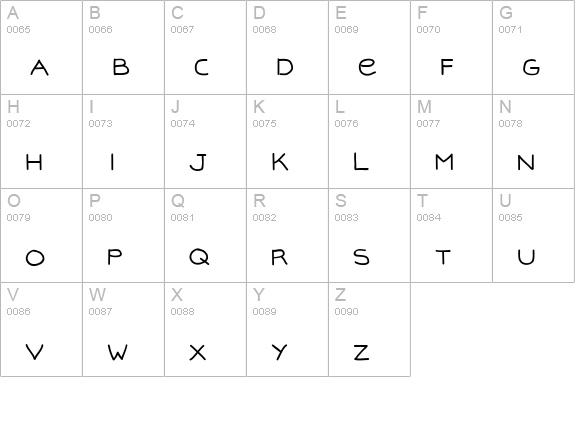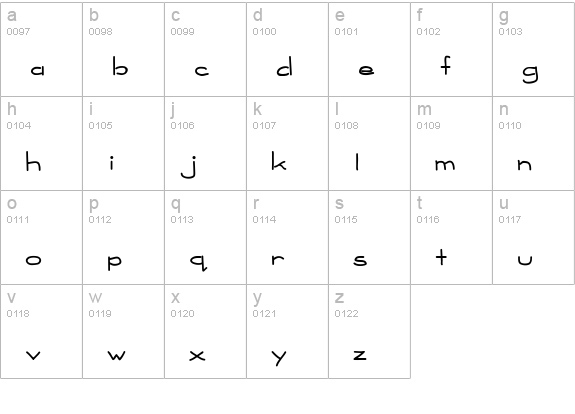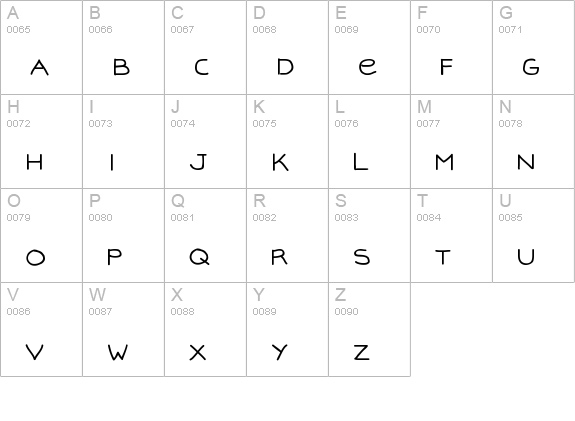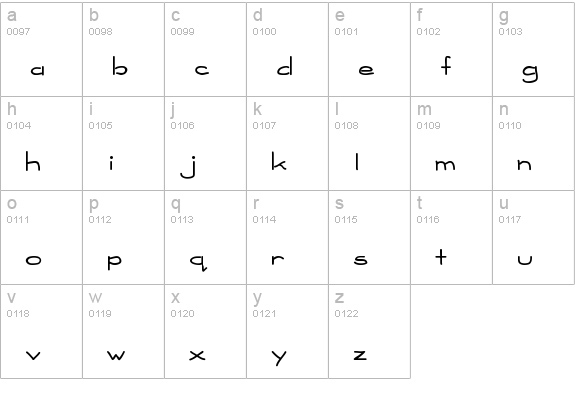
Madison Font Details
Introducing the exquisite Madison font, a delightful typeface that effortlessly combines elegance with a modern flair. Designed with meticulous attention to detail, Madison exudes a timeless charm that is perfect for a wide range of design projects. With its graceful curves and refined strokes, Madison captures the essence of sophistication, making it ideal for invitations, branding, packaging, and other creative endeavors. Whether you're designing a wedding invitation, a luxurious logo, or a high-end product label, Madison's versatility will exceed your expectations. What makes Madison even more remarkable is that it is freely available to download at FontsMarket.com. Yes, you read it right - this exceptional font can be yours without any cost. Thanks to FontsMarket.com's commitment to providing quality resources to designers, Madison can be easily accessed by anyone seeking to enhance their creative projects. Featuring a comprehensive character set that includes uppercase and lowercase letters, numerals, punctuation marks, and a variety of special characters, Madison offers endless possibilities for artistic expression. Its smooth and legible design ensures readability across various mediums, from print to digital platforms. Embrace the beauty of Madison and elevate your designs to new heights. Download this captivating font today and let its elegance transform your creative vision into reality. Whether you're a professional designer or a passionate hobbyist, Madison is the perfect addition to your typographic toolkit. Unleash your creativity and let Madison be your trusted ally in crafting stunning visual experiences.